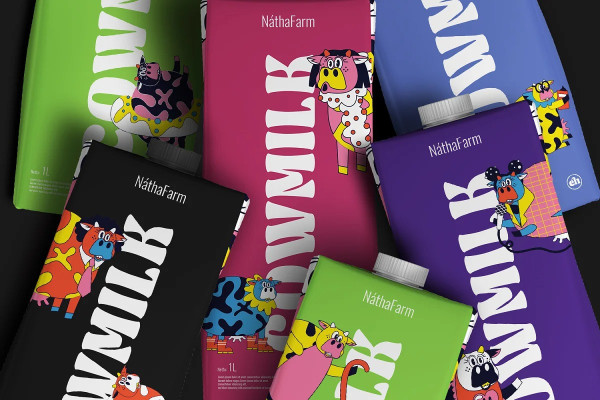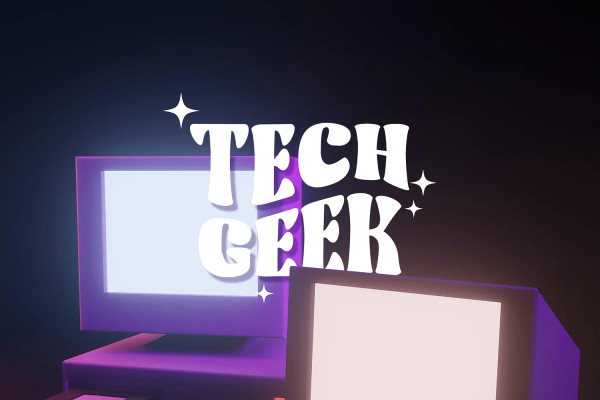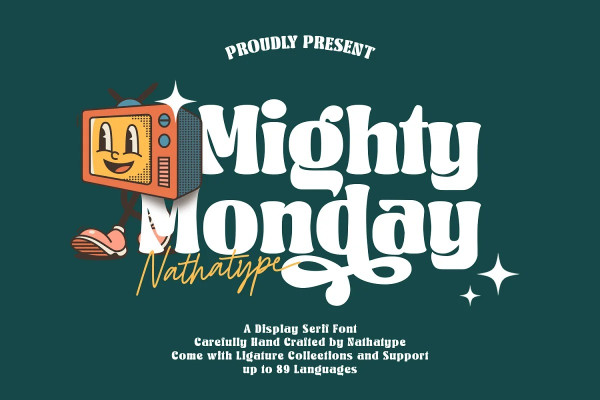
Mighty Monday Font
Mighty Monday Font is an adorable serif display font that will bring a smile to your designs. With its cute and playful letterforms and a fairly thick weight, this typeface exudes a delightful and charming vibe. This font duo special feature lies in its cute and endearing serifs, which add a touch of whimsy and character to each letter.
The fairly thick weight of the font enhances its boldness and creates a visual impact. This font is perfect for projects that require a standout and attention-grabbing typographic choice. Inspired by the charm of playful design, Mighty Monday Font captures the essence of cuteness and joy.
The letterforms are carefully designed to be friendly and approachable, making them perfect for designs targeted at children or any audience that appreciates a lighthearted and cheerful aesthetic. This font brings a sense of fun and playfulness to your designs.
The uppercase letterforms are carefully crafted to maintain legibility and clarity, even in the thick weight. Each letter retains its distinctive characteristics, allowing your message to be easily understood. You can use it in big text sizes to be greatly legible and enjoy the available features here.